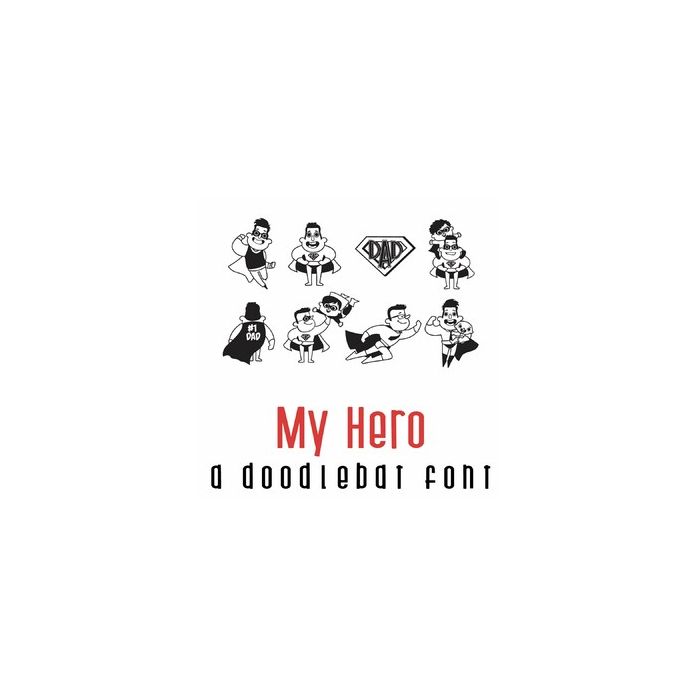
This fun doodlebat font features 26 super hero images. Perfect for Father's Day, use this fun doodlebat font for cards, crafts, gifts, decor, parties, planner stickers, scrap book pages and more!